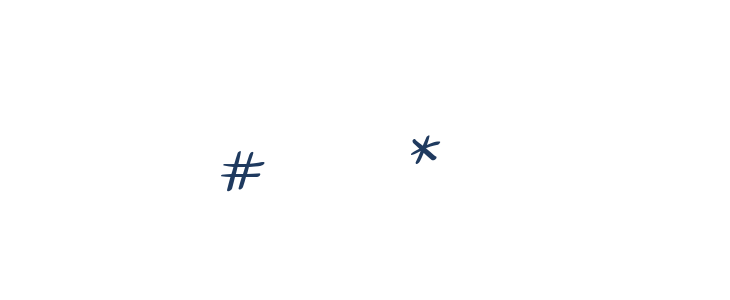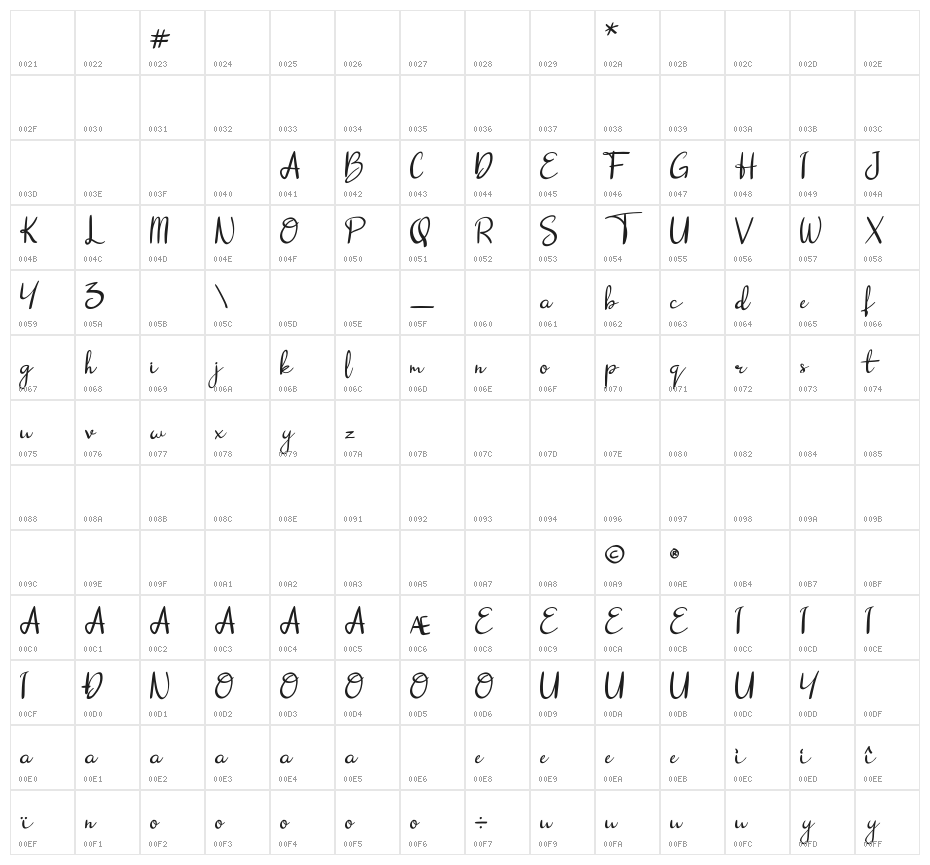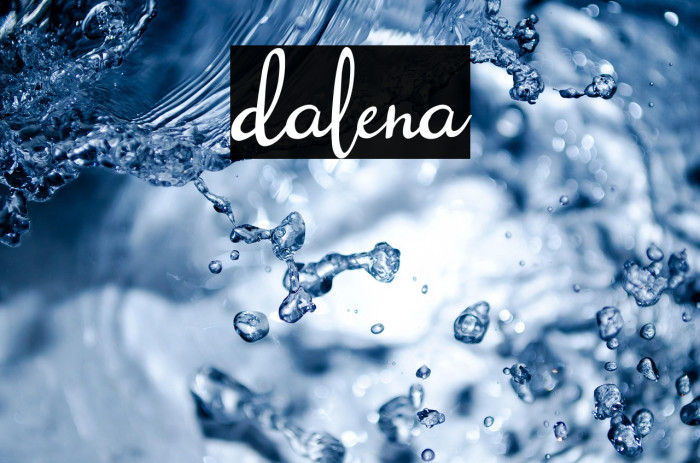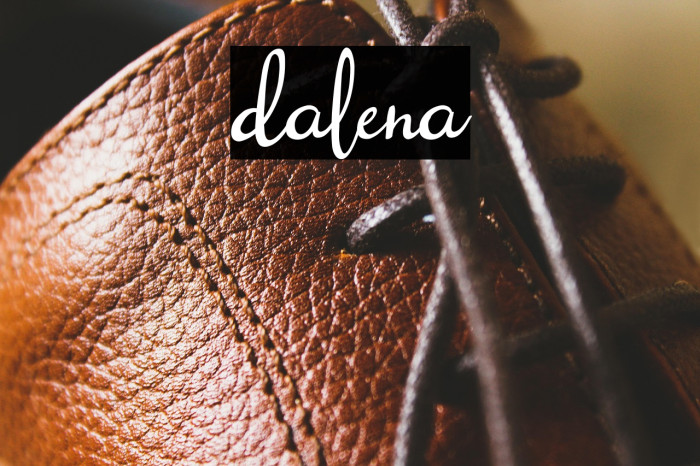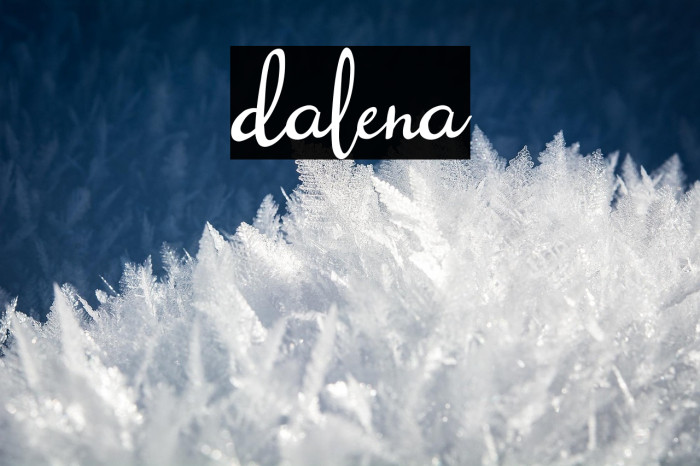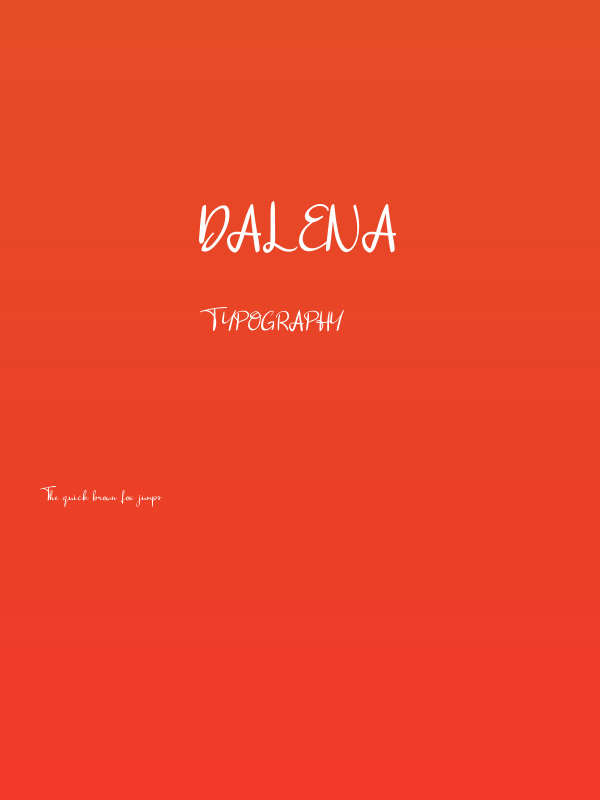
dalena Font
dalena Description
This font exudes a playful and elegant charm, characterized by its flowing, cursive style. The uppercase letters are bold and dynamic, with a slight slant that adds a sense of movement and grace. The lowercase letters maintain a consistent flow, with smooth curves and loops that enhance its handwritten appeal. The font features a moderate contrast in stroke thickness, giving it a lively and vibrant appearance. The special characters are uniquely styled to match the overall aesthetic, making it versatile for various design needs. Its artistic flair makes it suitable for creative projects where a touch of personality is desired.
| Proposed Projects | Ideal for wedding invitations, greeting cards, branding projects, and artistic posters. |